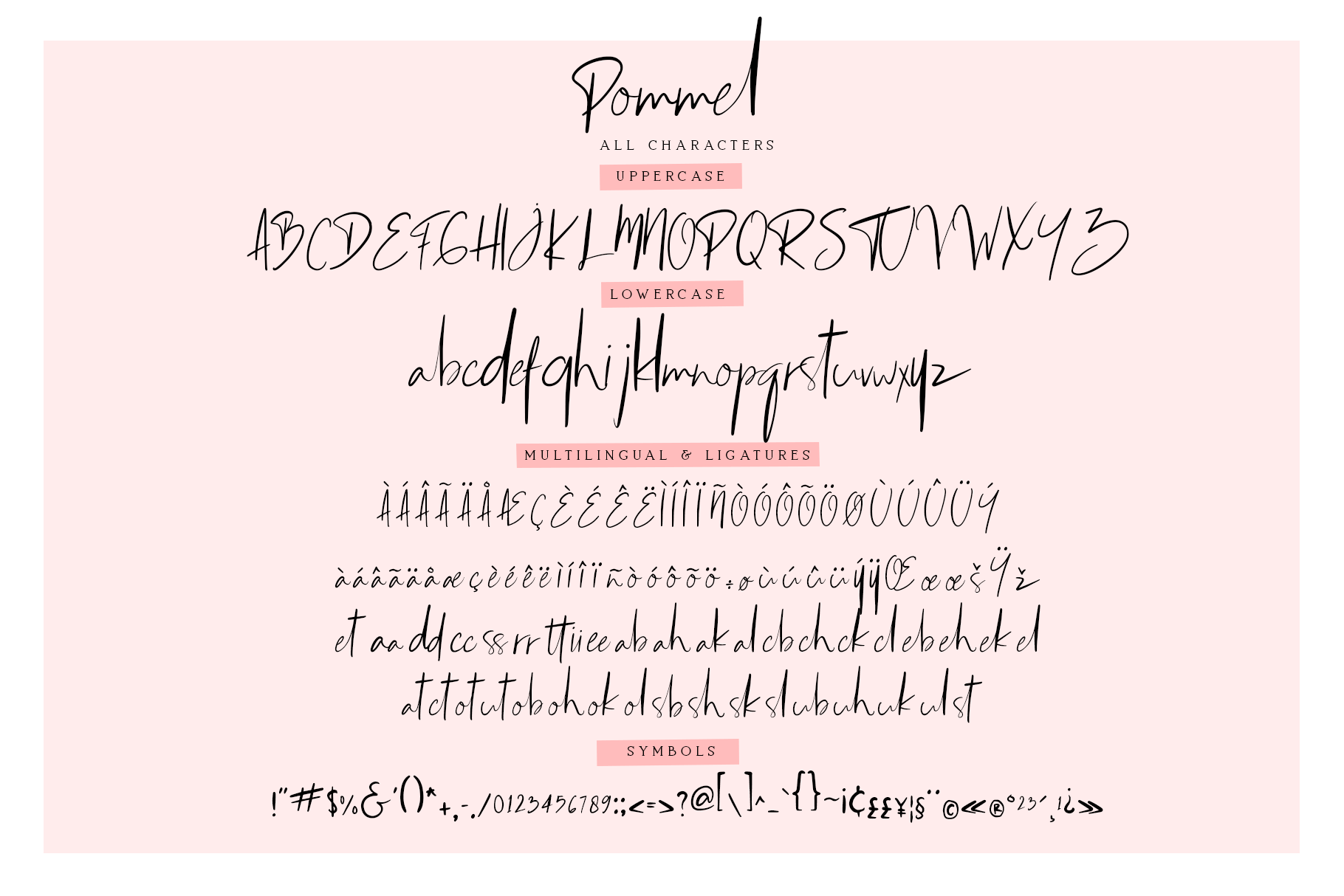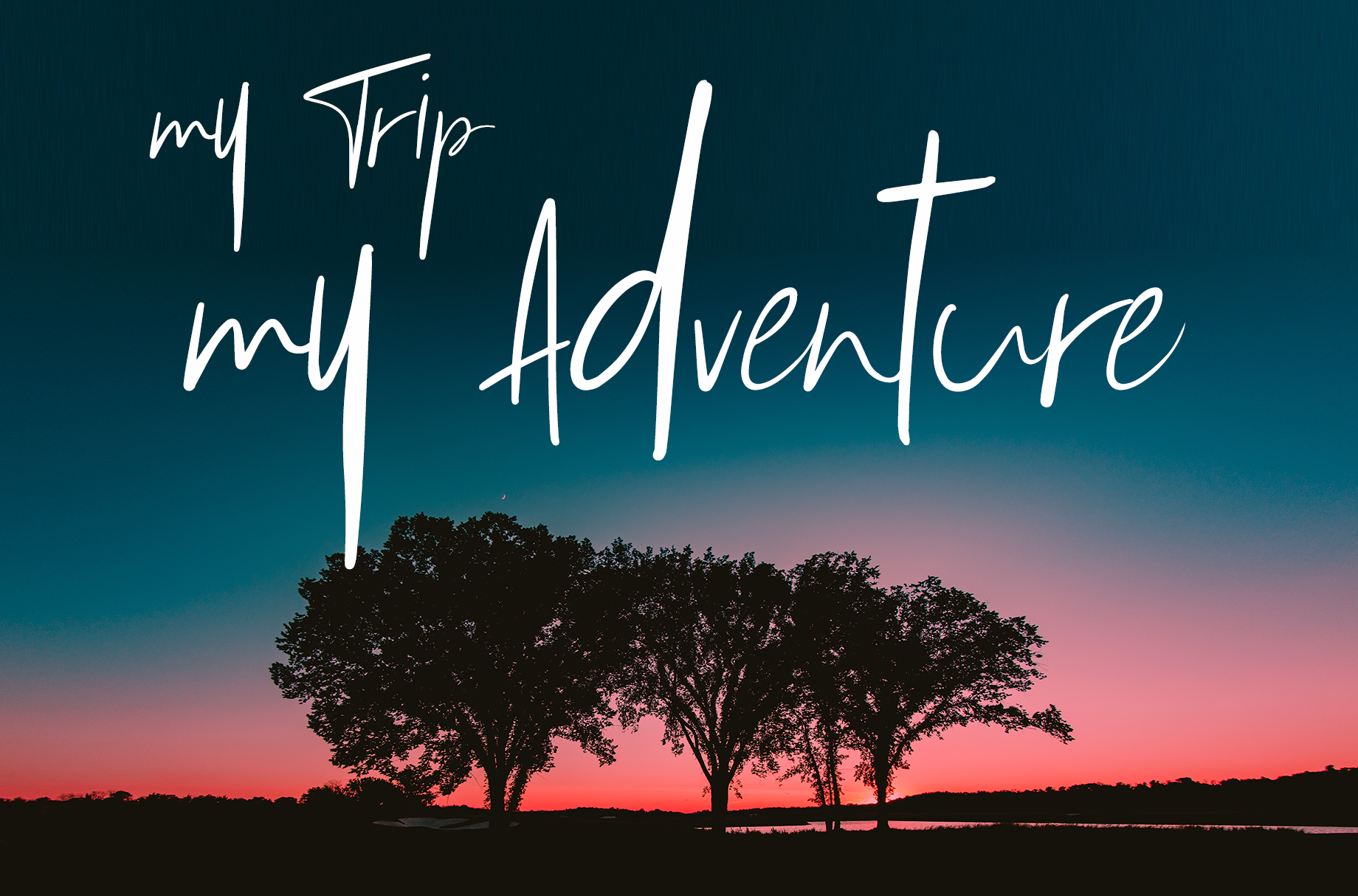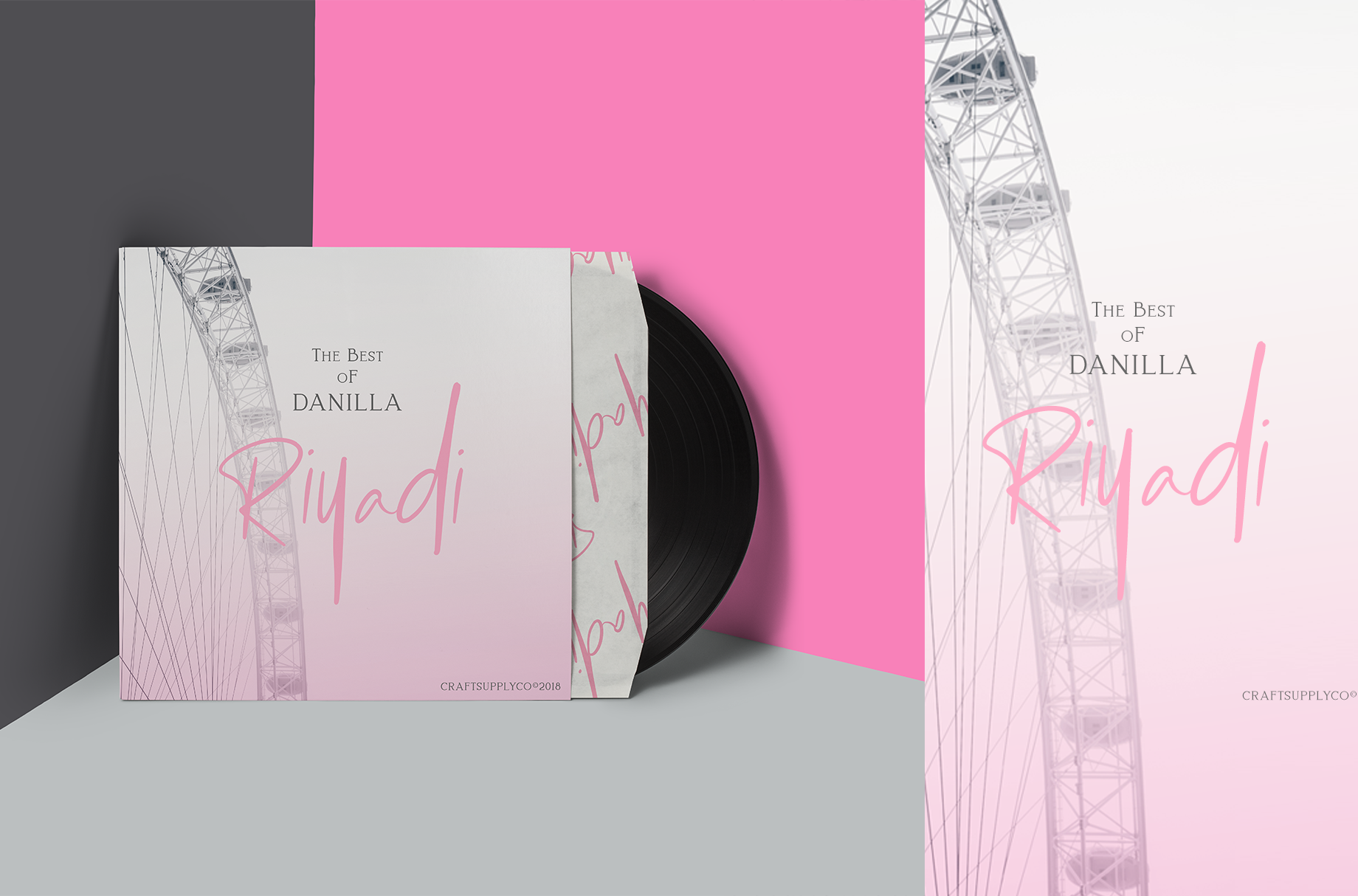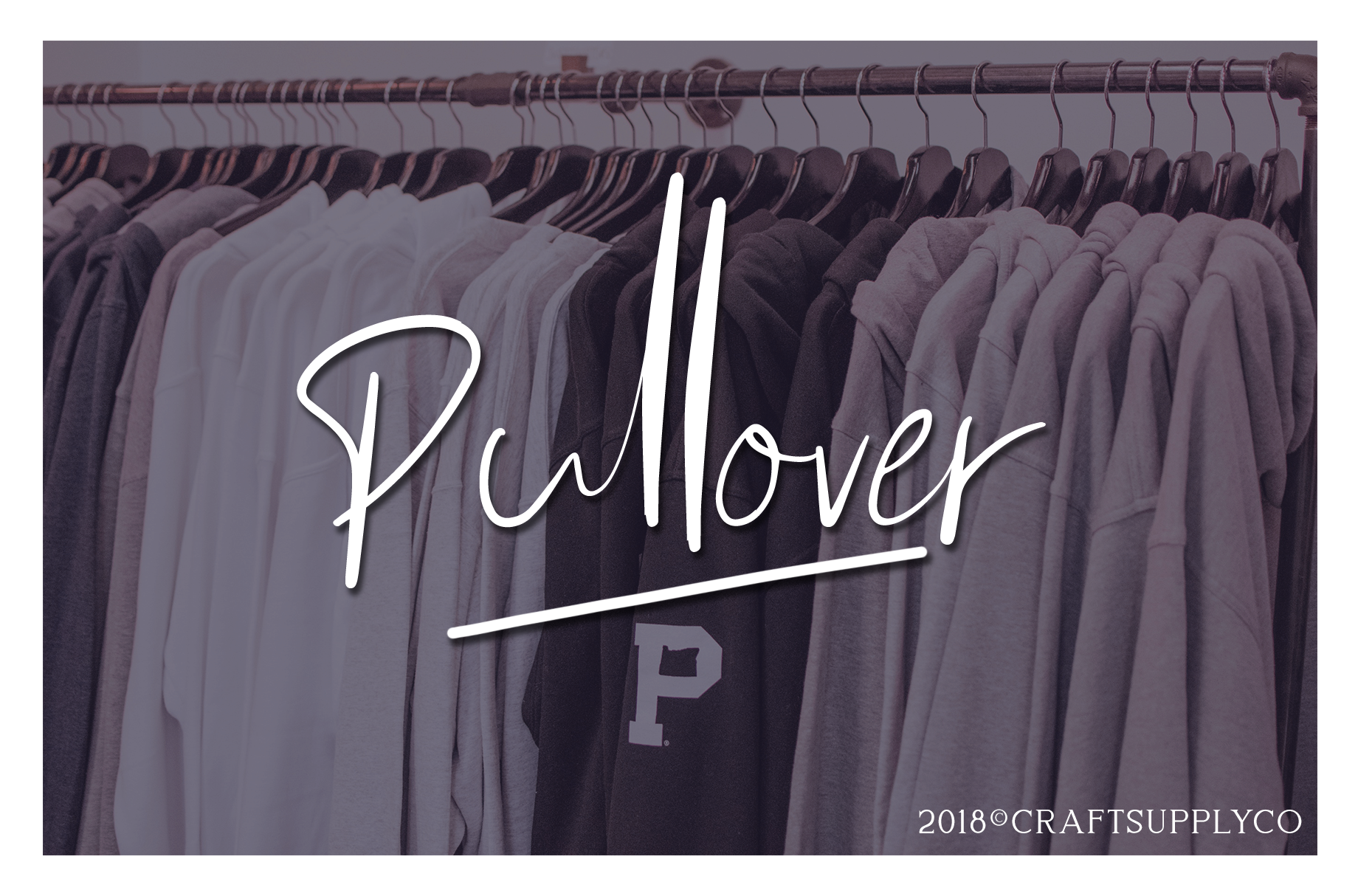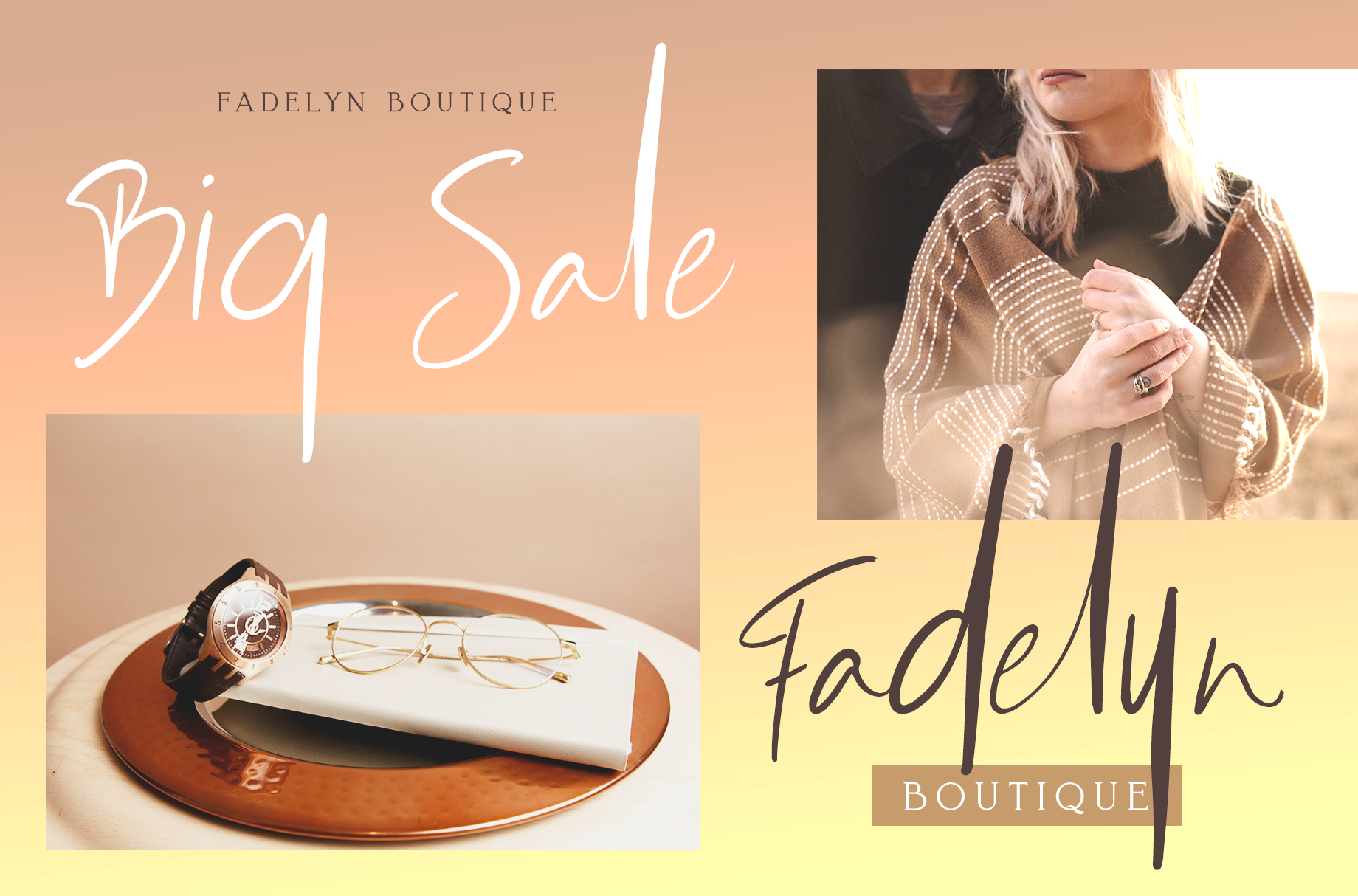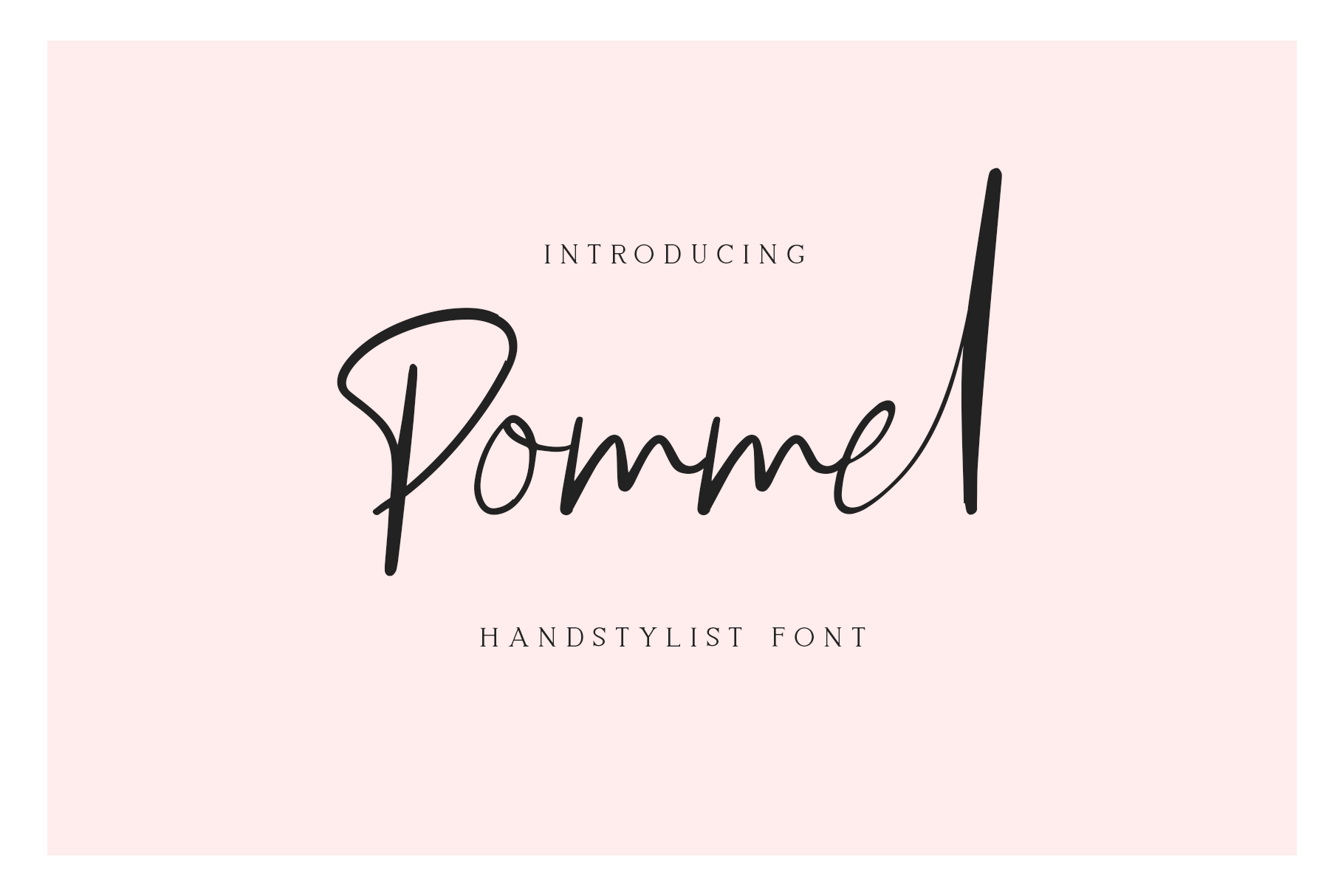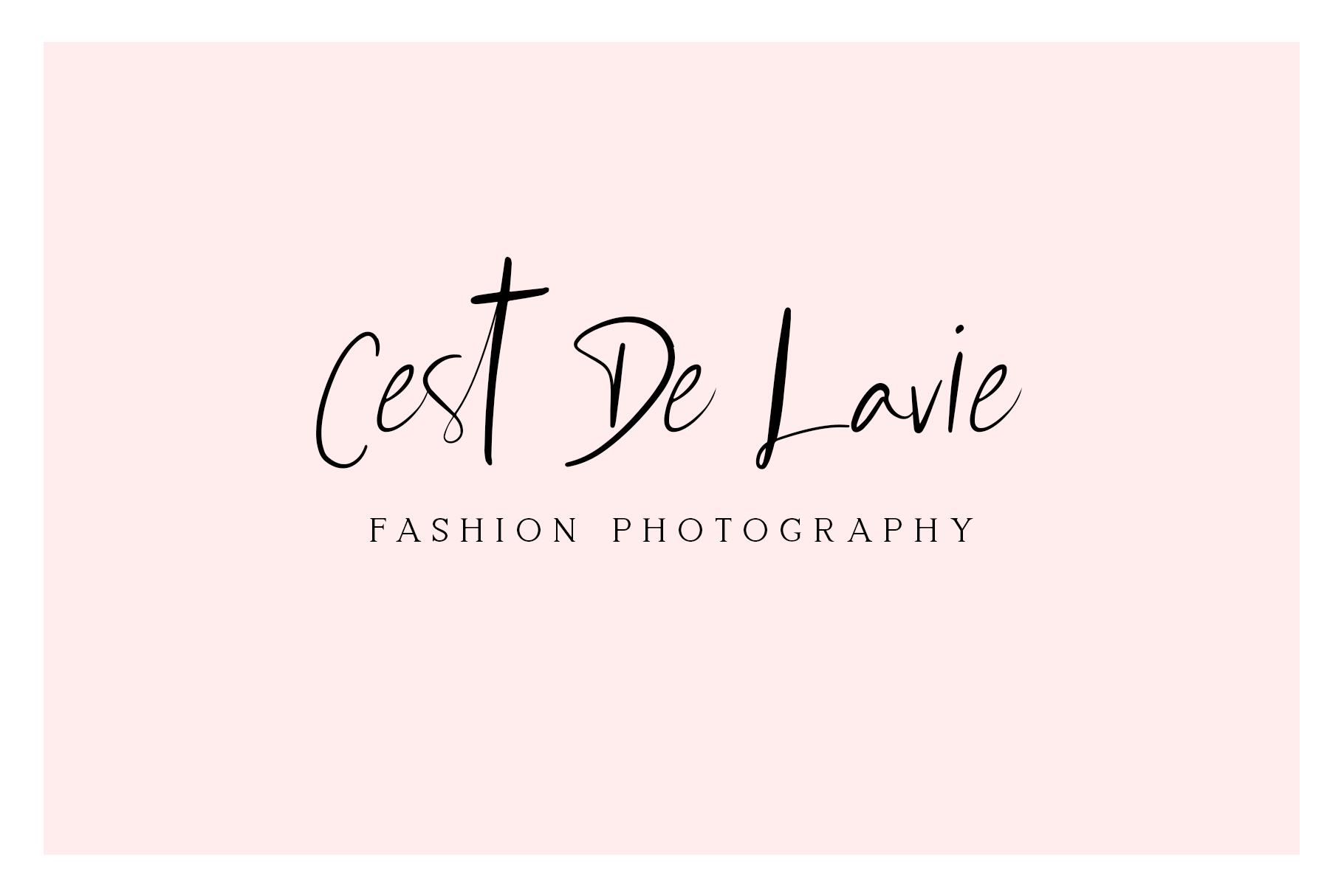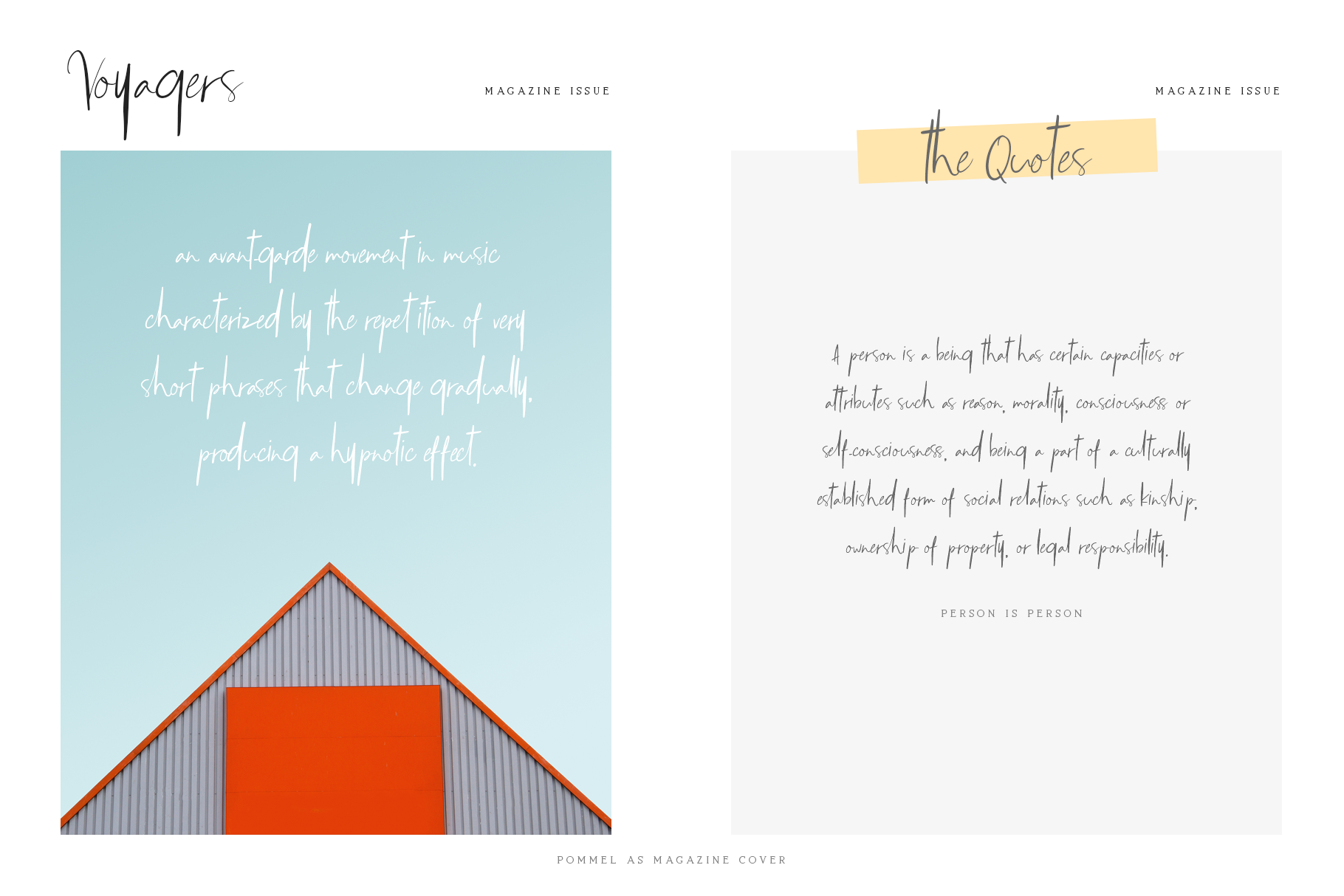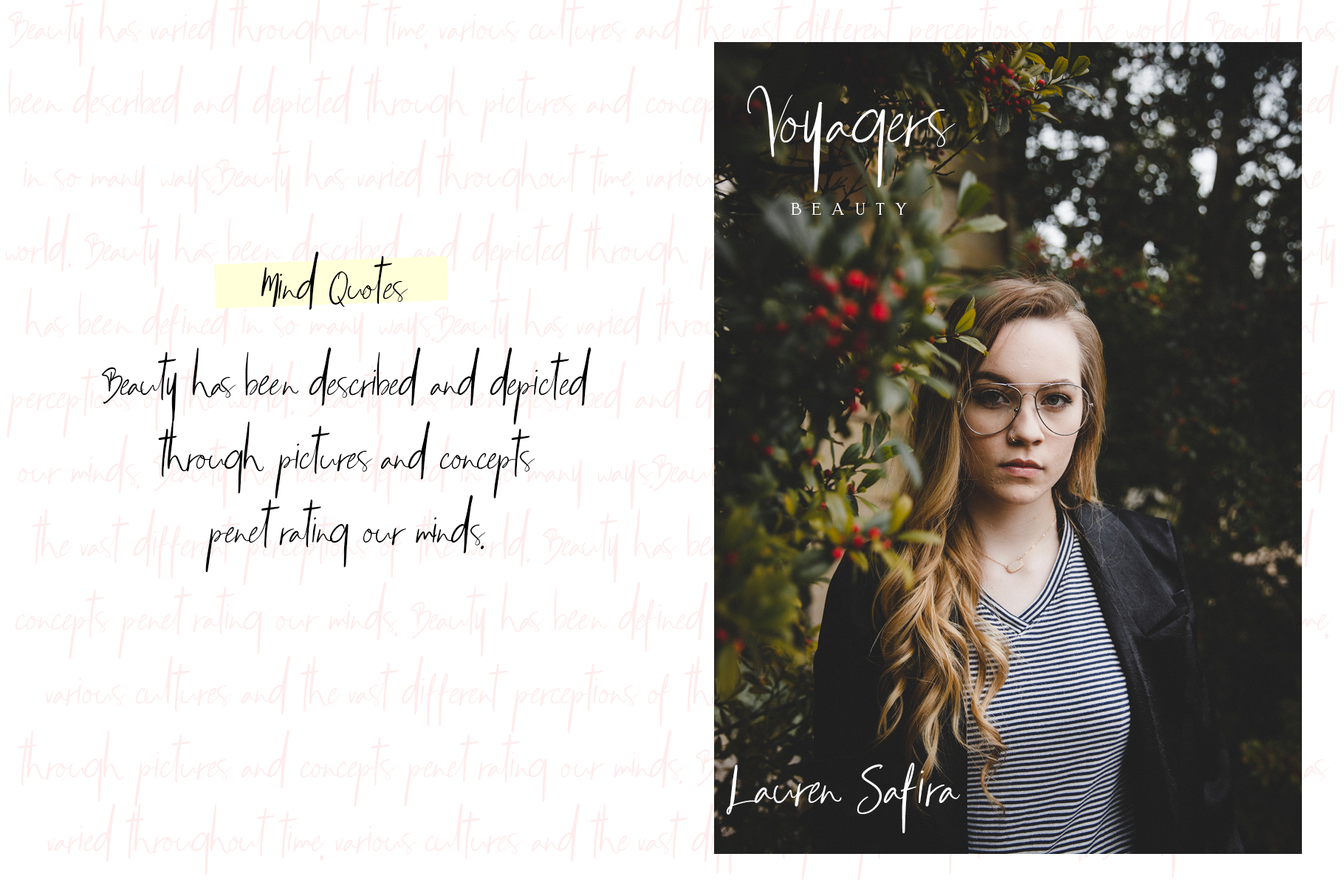
Pommel Font
About Pommel Font
Pommel is a handwritten font based on a real handwriting.
It works great for fashion & apparel, e-commerce, blogging, wedding boutiques and much more. It has a upscale, chic look, which helps to elevate the image of your design.